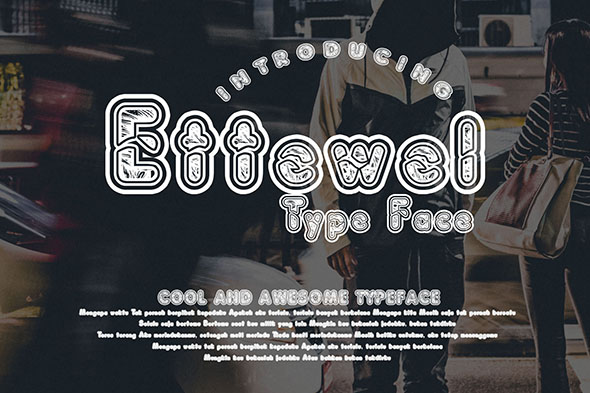
**Introducing the Ettewel Font Family: A Symphony of Sophistication and Allure**
Step into the realm of exquisite typography with the Ettewel Font Family, a breathtaking collection that will transform your designs into masterpieces. Discover an ensemble of meticulously crafted display fonts, each imbued with its own captivating personality.
Escape the mundane and embrace the extraordinary with Ettewel. This font family is not merely a collection of letters; it's a testament to the transformative power of design, an invitation to express your individuality and elevate your projects to new heights.
Imagine the allure of your website headlines, the impact of your social media posts, or the magnetism of your branding materials adorned with the Ettewel Font Family. Each font is a symphony of sophistication, adding a touch of elegance and an air of authority to your creations.
With Ettewel, you'll discover the joy of seamless versatility. Whether you seek a font that exudes confidence for corporate presentations or a touch of whimsy for personal projects, the Ettewel Font Family has a style that will ignite your imagination.
Let the flowing curves of Ettewel Regular captivate your audience, inviting them into a world of sophistication and grace. Experience the bold allure of Ettewel Bold, demanding attention and making a statement that resonates.
Indulge in the delicate finesse of Ettewel Light, a font that dances across the page with effortless elegance. Discover the playful charm of Ettewel Italic, adding a touch of movement and personality to your designs.
The Ettewel Font Family is more than just a collection of fonts; it's a tool of expression, a key to unlocking your creative potential. Embrace the Ettewel experience today and elevate your designs to the realm of the extraordinary.